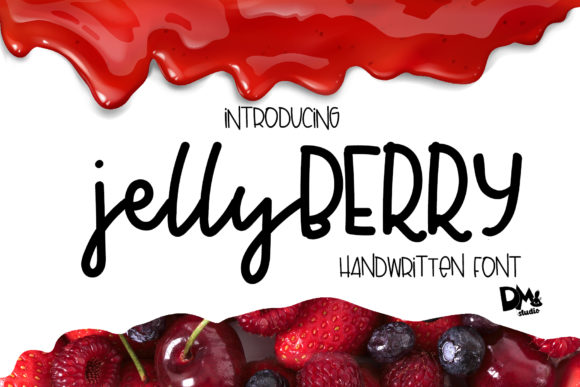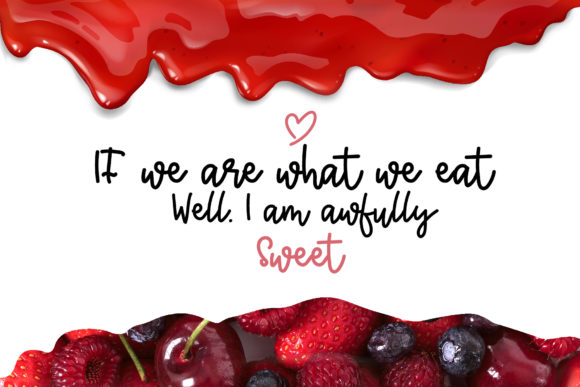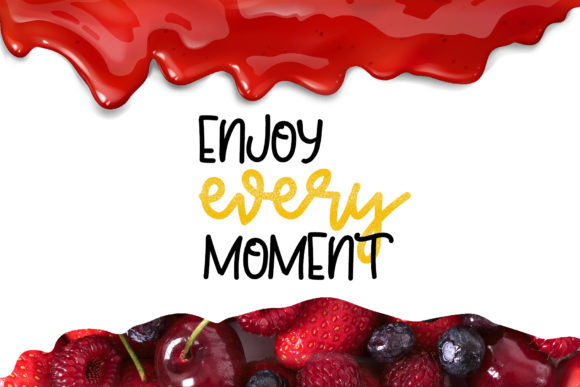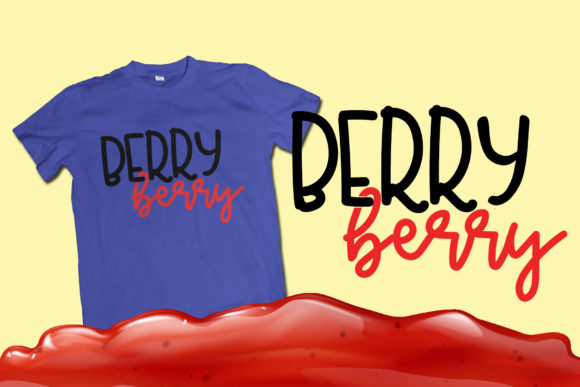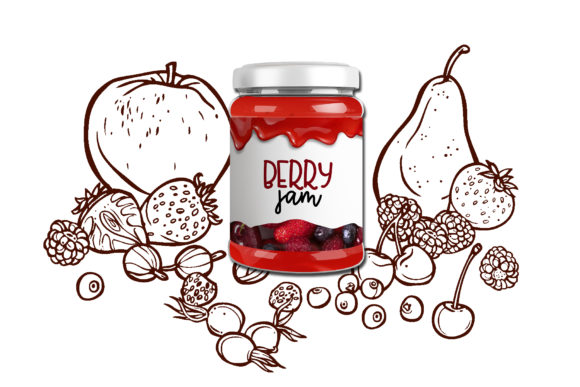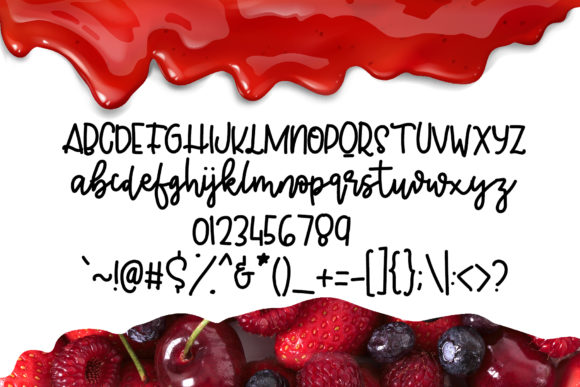
Jelly Berry Font
About Jelly Berry Font
The Jelly Berry is a fun font duo. It includes striking styles which can be combined perfectly, giving you the opportunity to create multiple unique designs with just this one download.
Combine this cute script and sans serif to make sweet quotes, handcrafted designs, souvenirs, t-shirts, social media posts, branding, and much more!